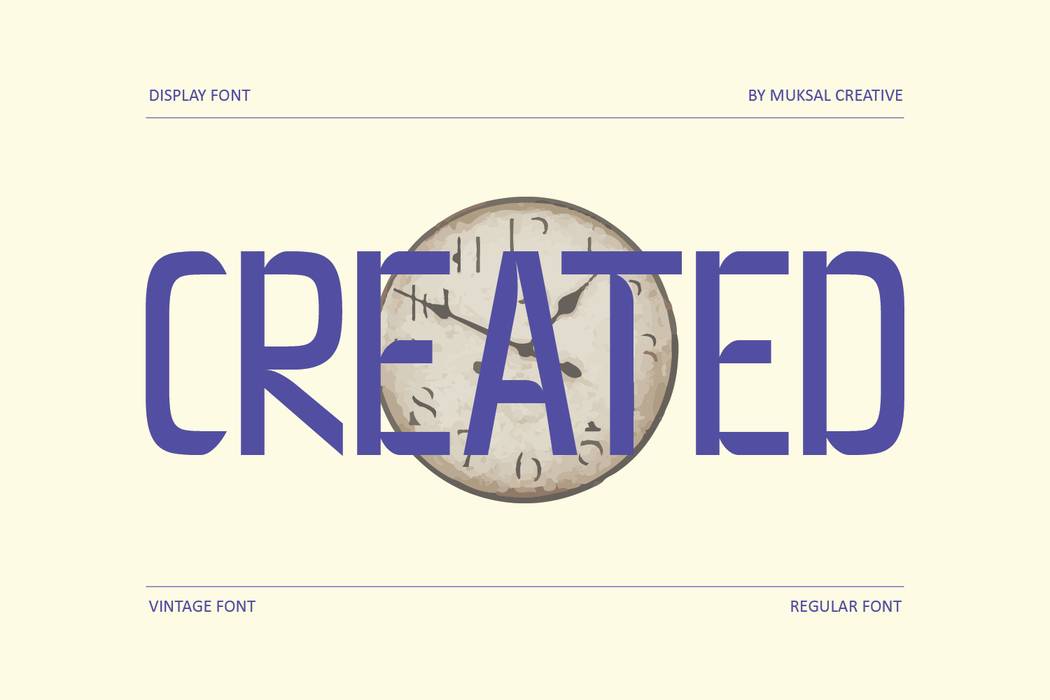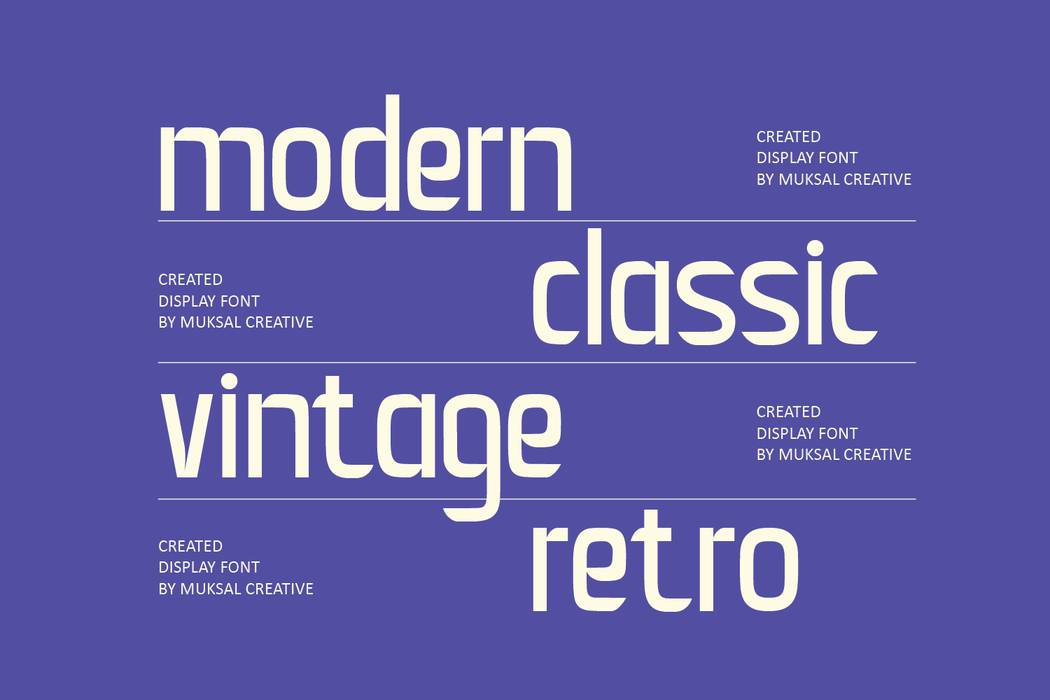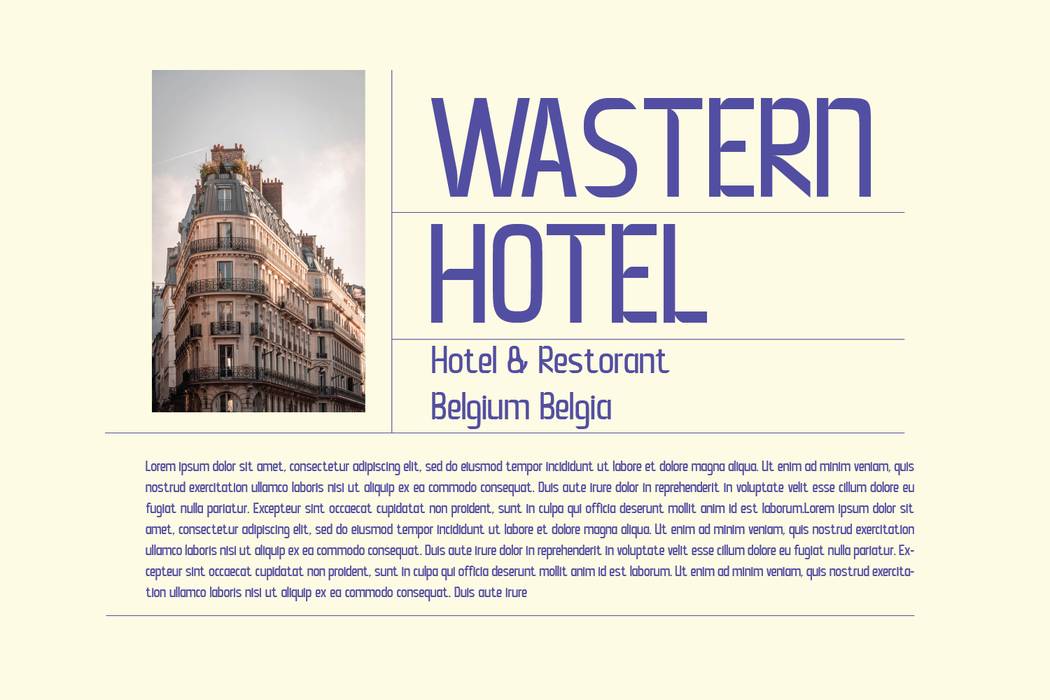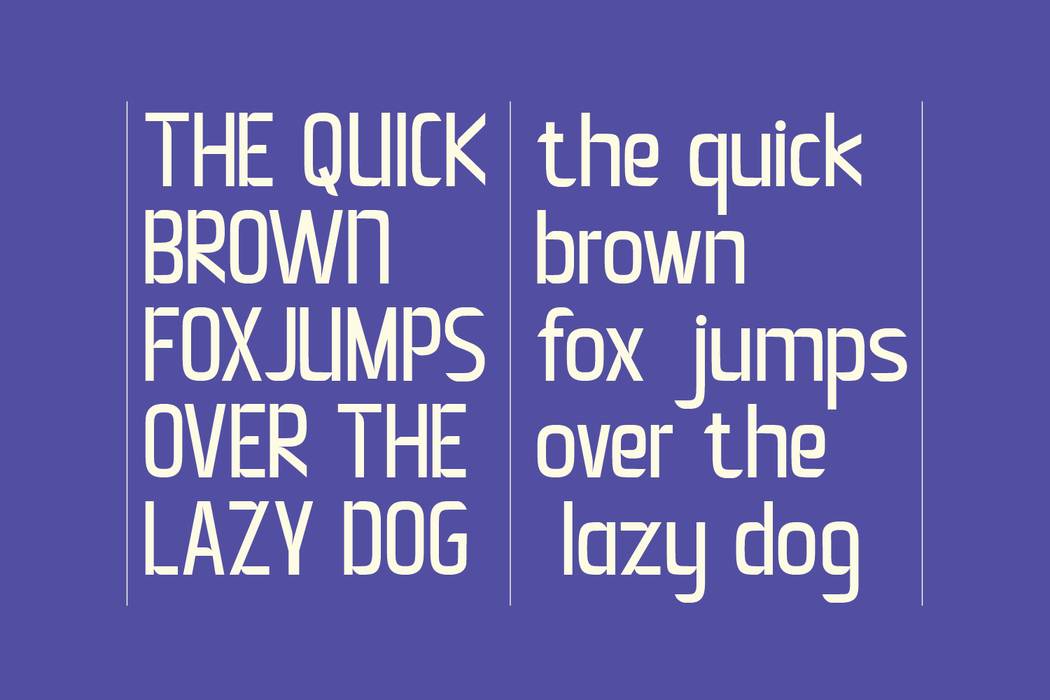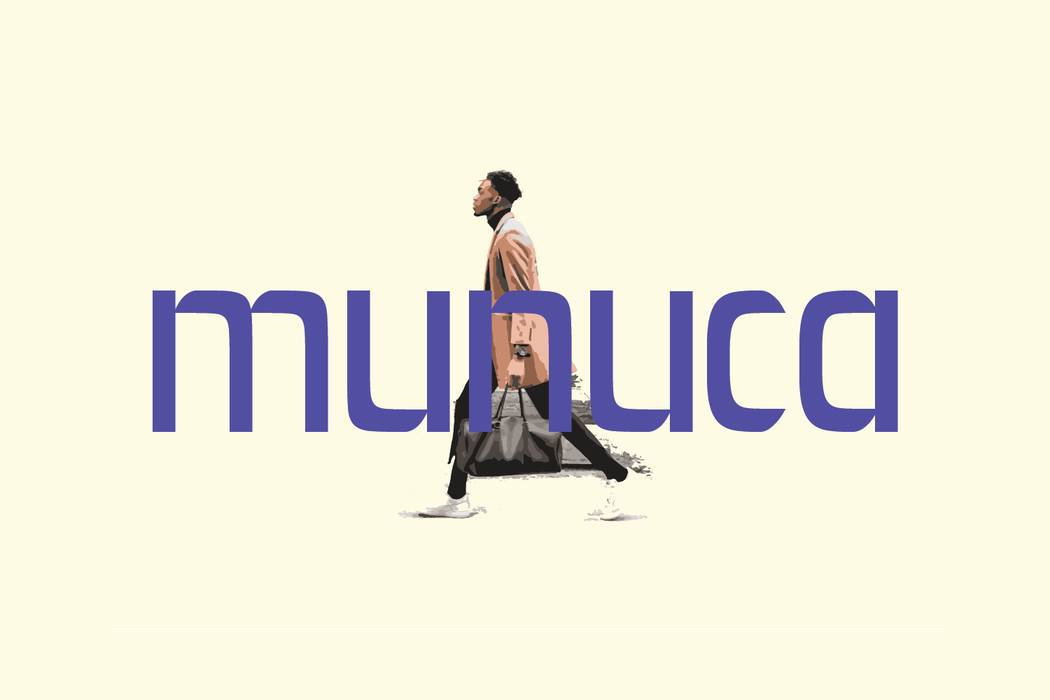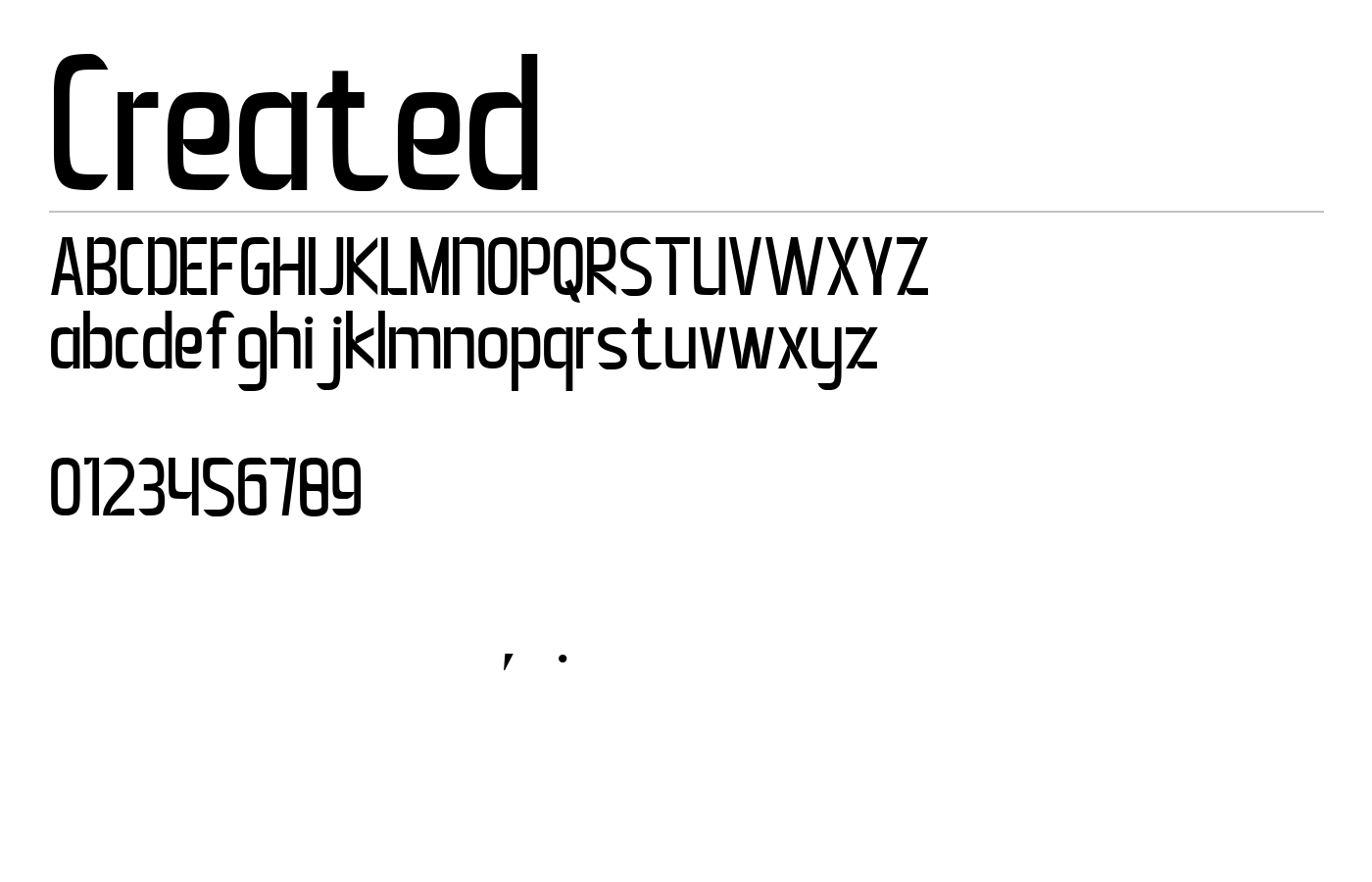
Created Font is a narrow, sans serif typeface with a modern and geometric feel. Its tall, condensed letterforms and consistent stroke weight give it a clean, structured appearance perfect for contemporary branding and editorial headlines. This font works well where space is limited but clarity and a sleek, professional look are essential.
Created Font
About Created Font
| Font family | Created Font |
| Designer | Muksal Creative |